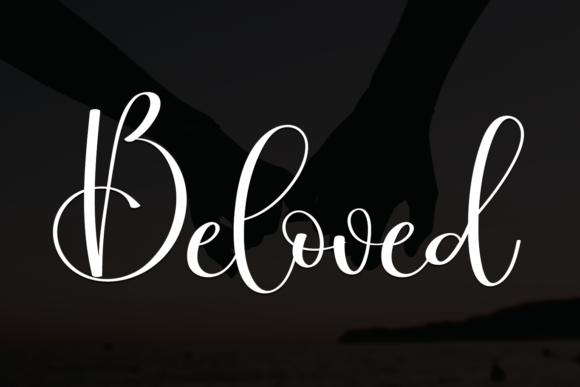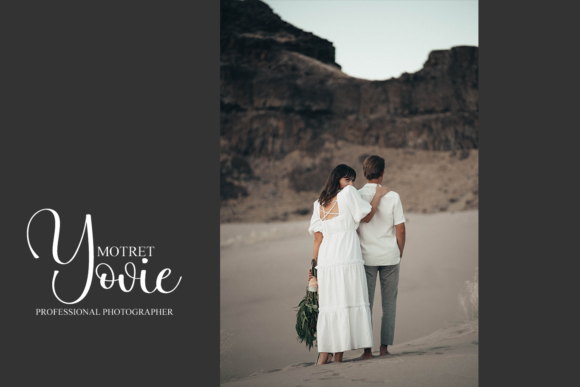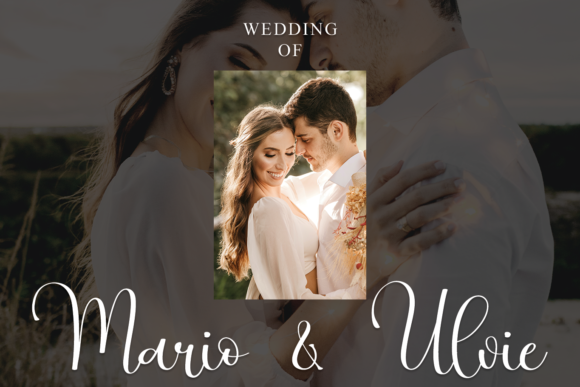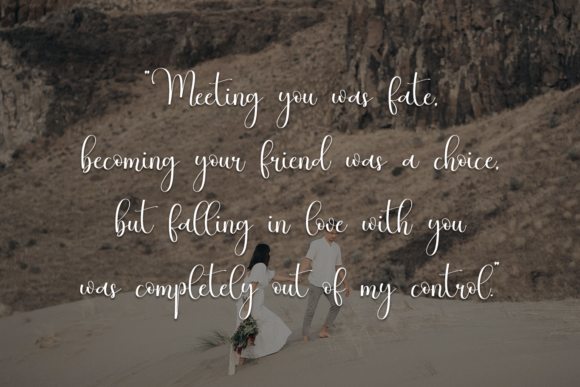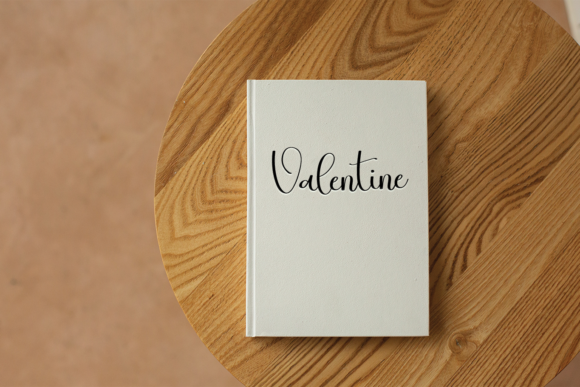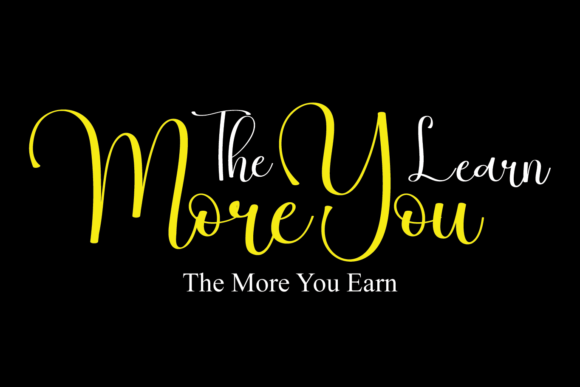
Beloved Font
About Beloved Font
Beloved is an exquisite handwritten font, masterfully designed to become a true favorite. It maintains its classy calligraphic influences while feeling contemporary and fresh. Fall in love with it and bring your projects to the highest levels!